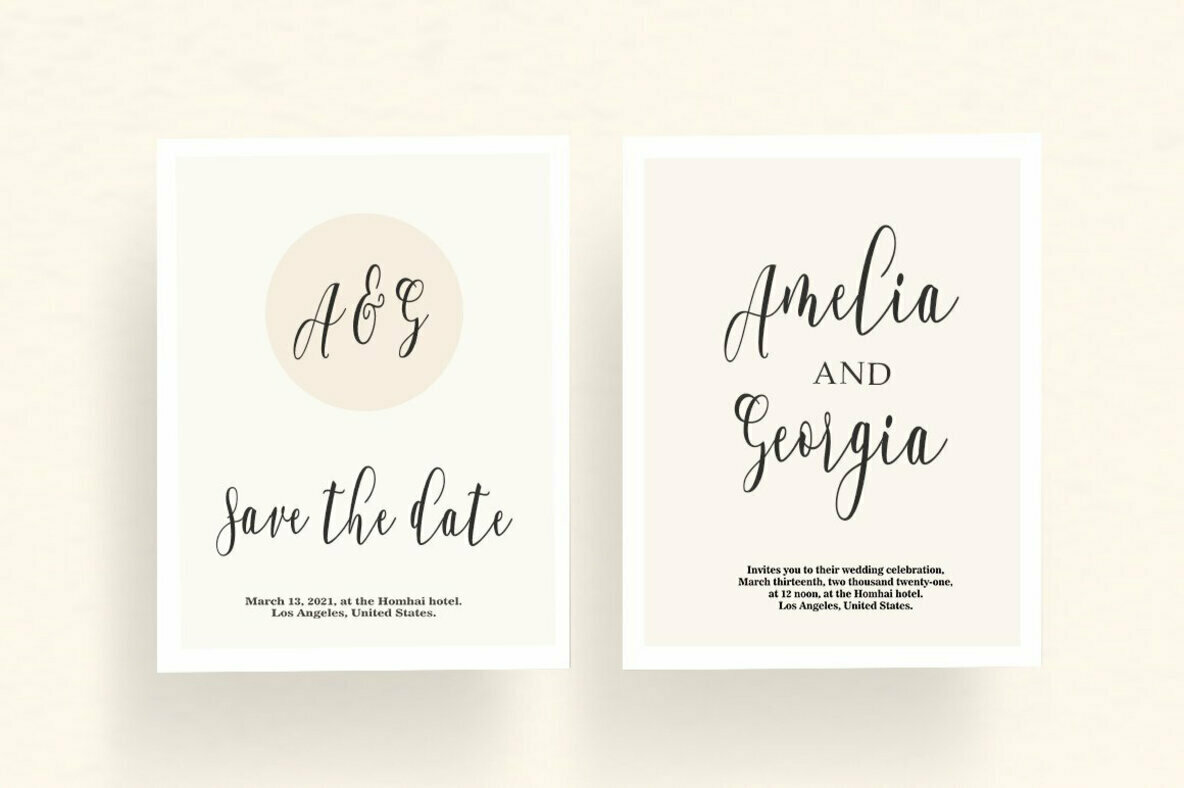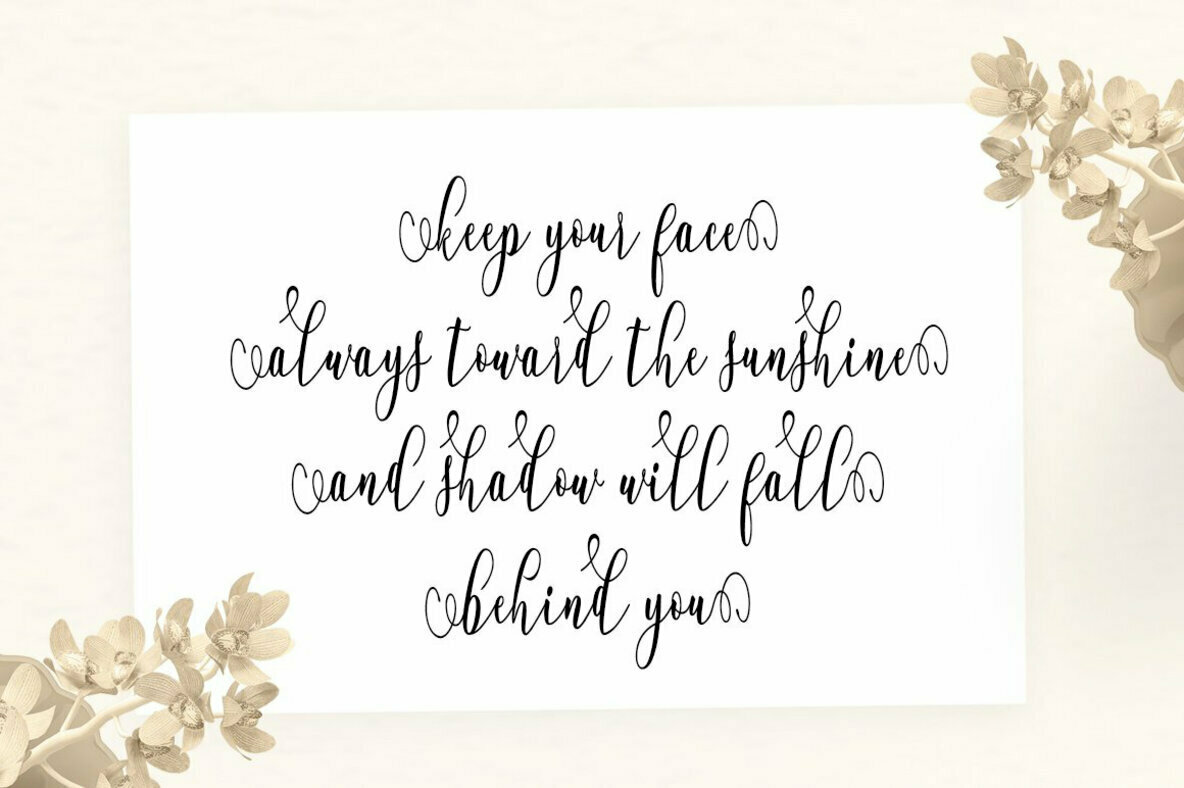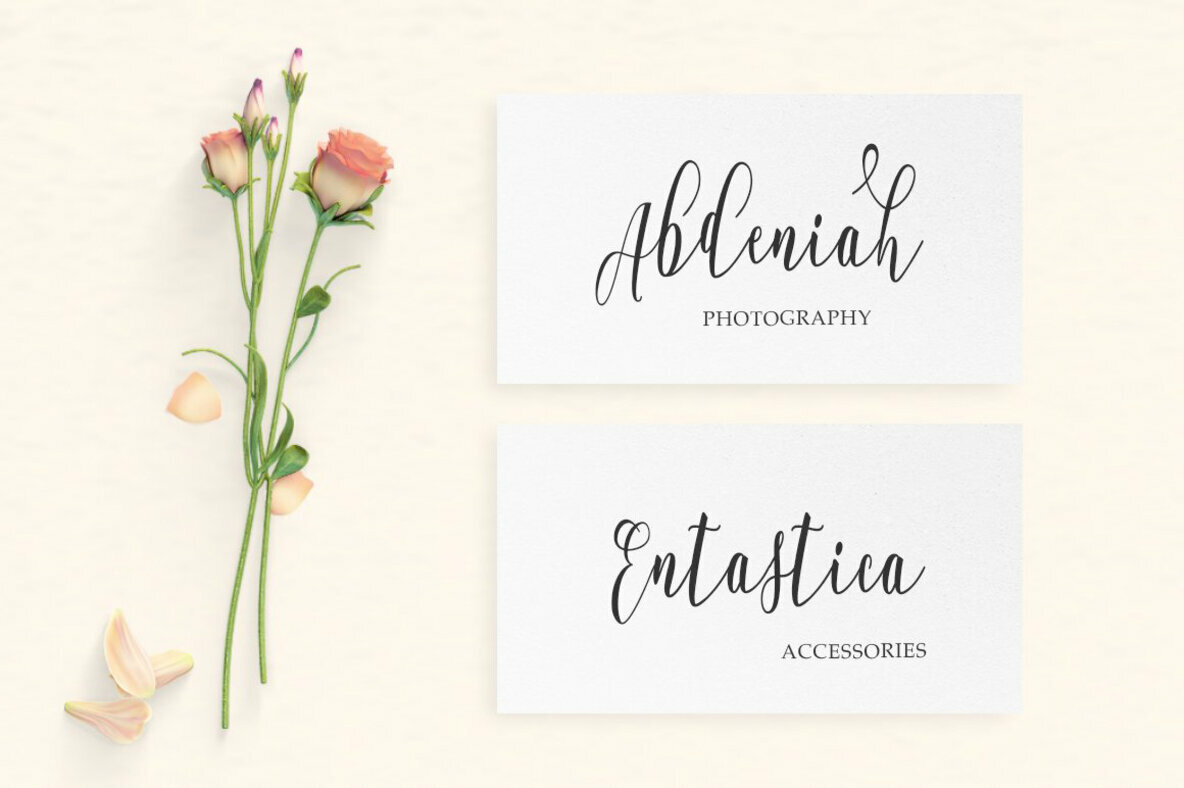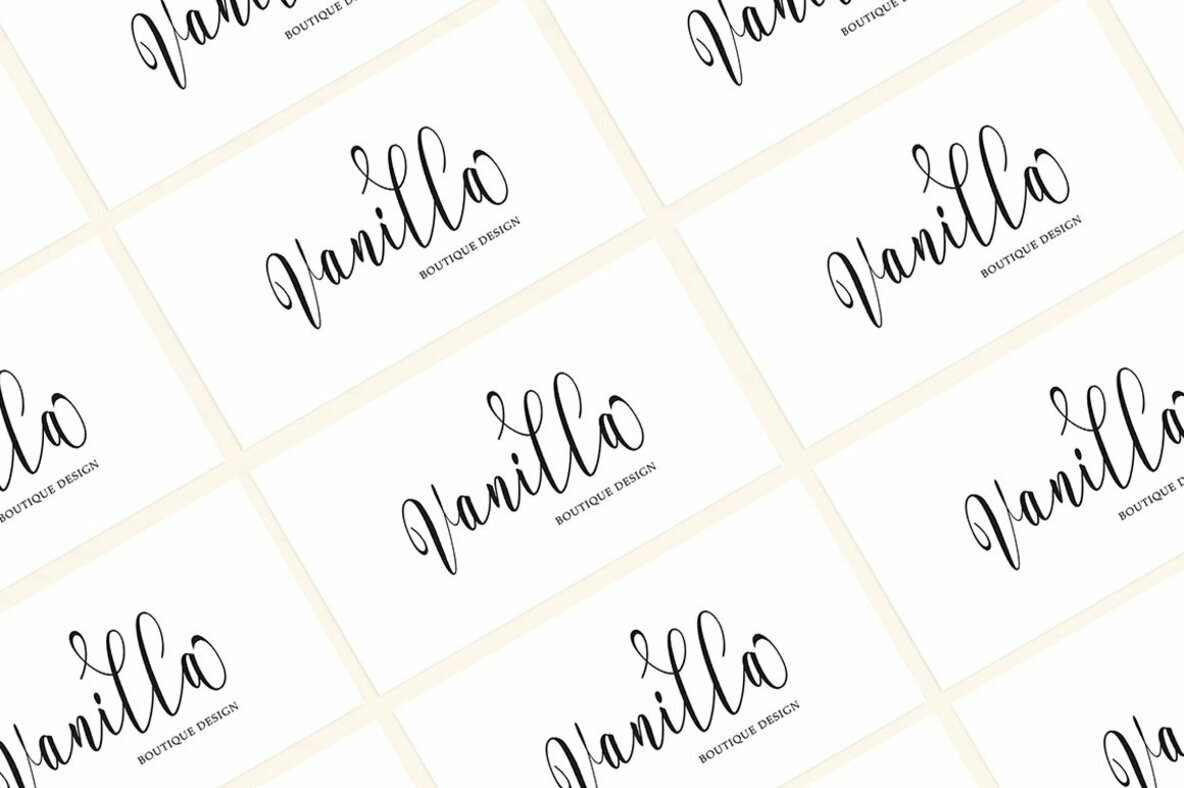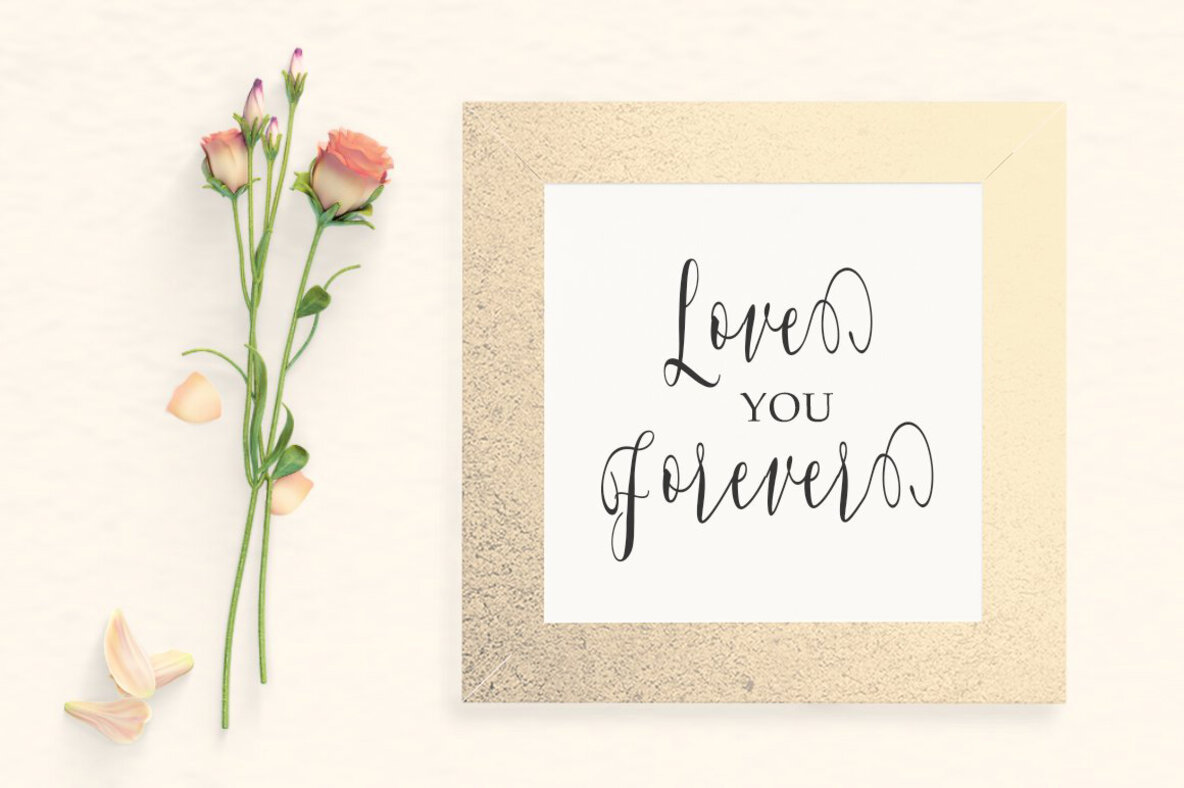
Whitelya Script Font
Whitelya Script
Whitelya Script is a modern script font known for its varying baseline and smooth, elegant strokes. Designed to provide a classic touch, this font includes unique opentype stylistic features such as ligatures, alternates, and swashes. It’s ideal for logo creation, branding, greetings, quotes, and more. To use its full range of features, access in programs supporting OpenType, such as Adobe Illustrator, Photoshop, InDesign, or Word 2010.Whitelya Script: Elegant Script Font with Classic Touch
Features: